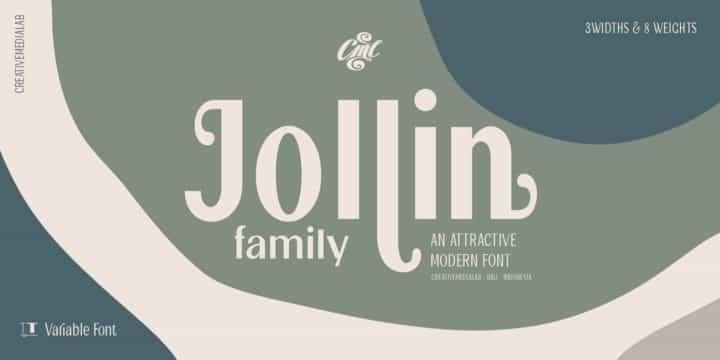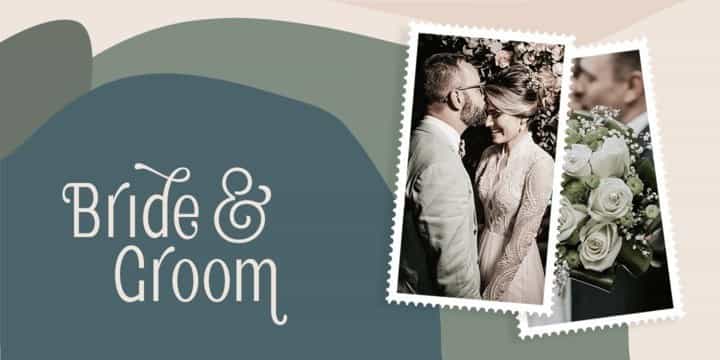
Jollin Font is a contemporary and fun San serif typeface. Perfect for pairing with script or handwritten fonts, it also looks incredible when combined with its own family. Great for headings but equally good in body texts too!